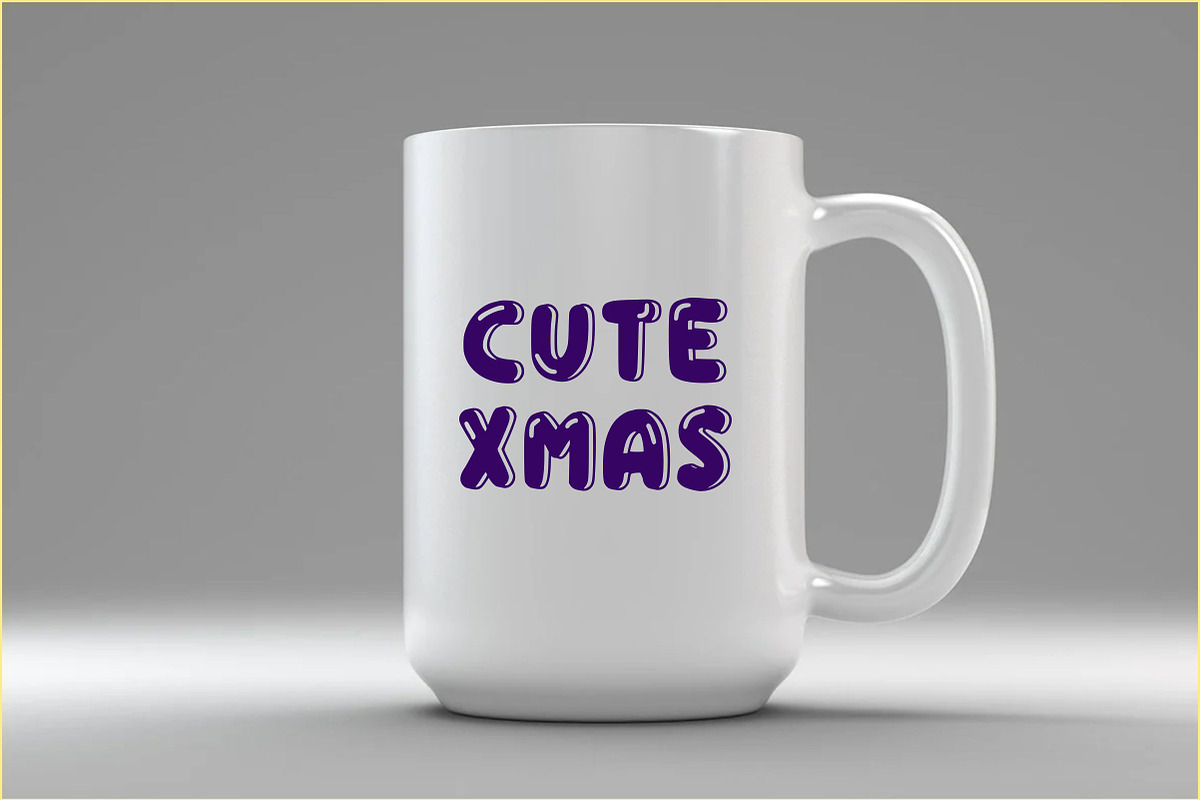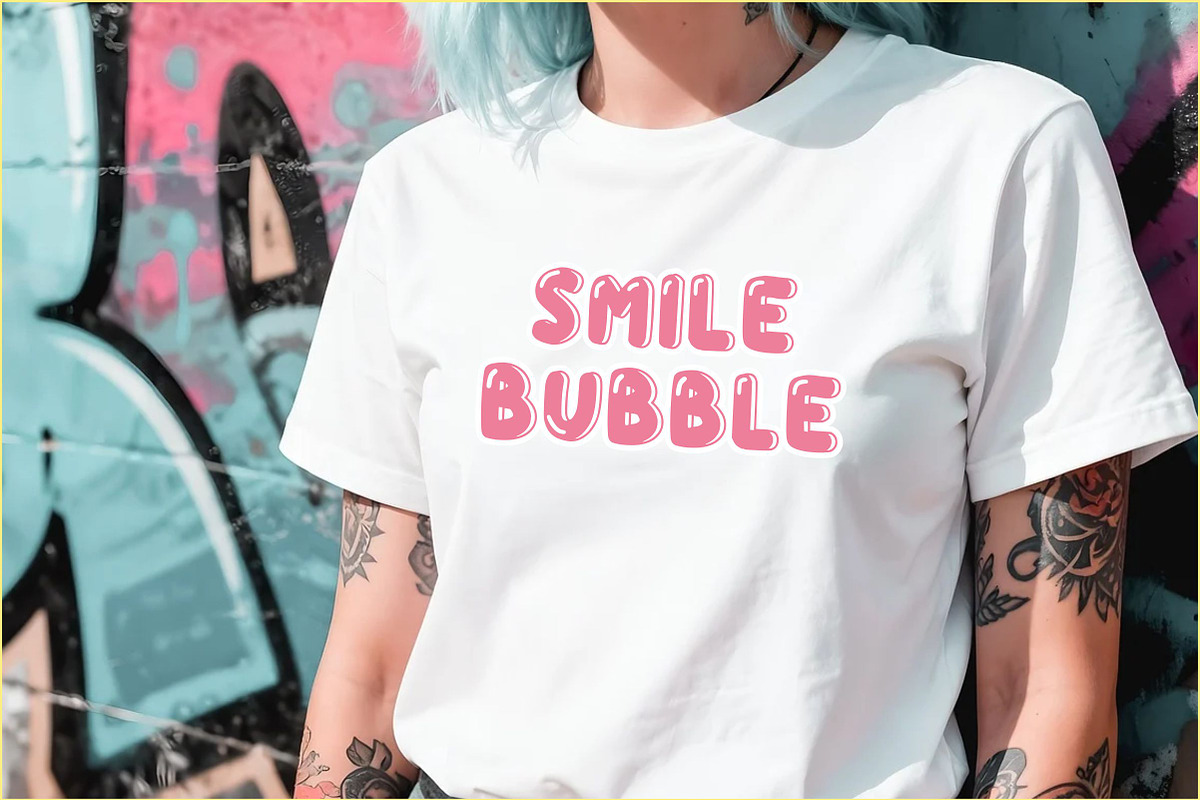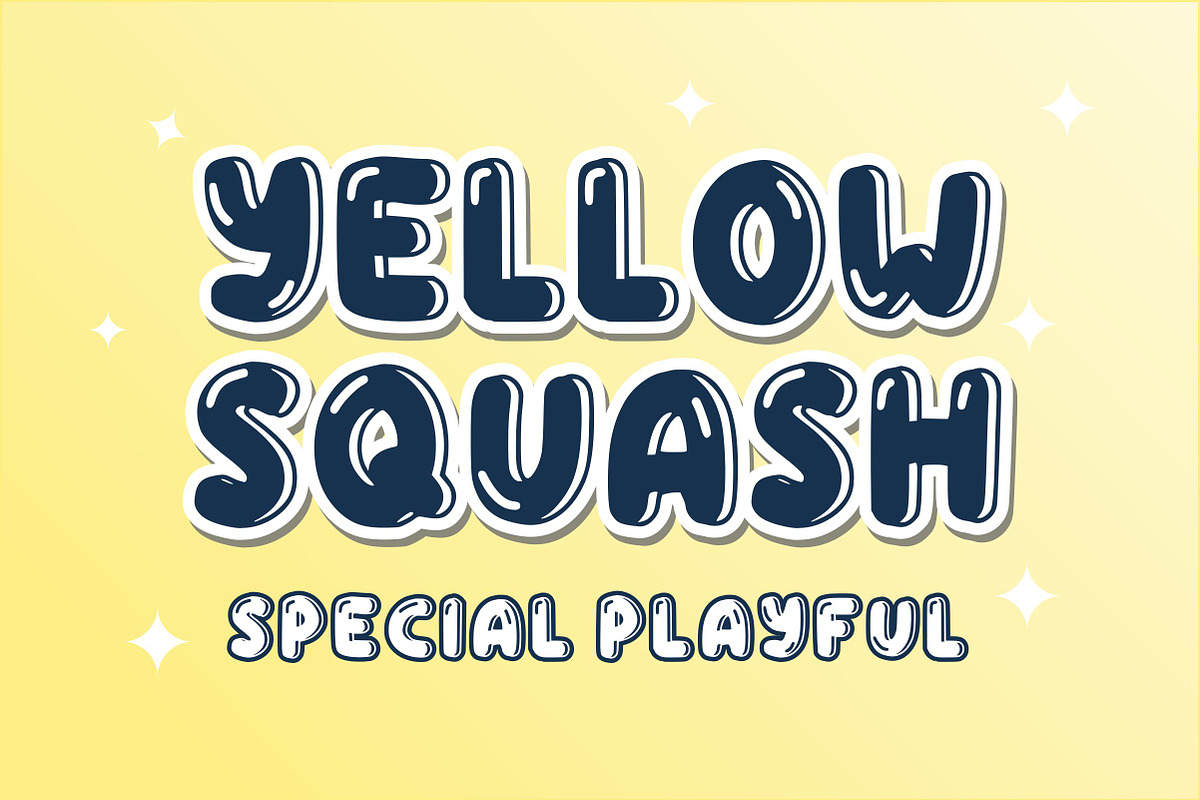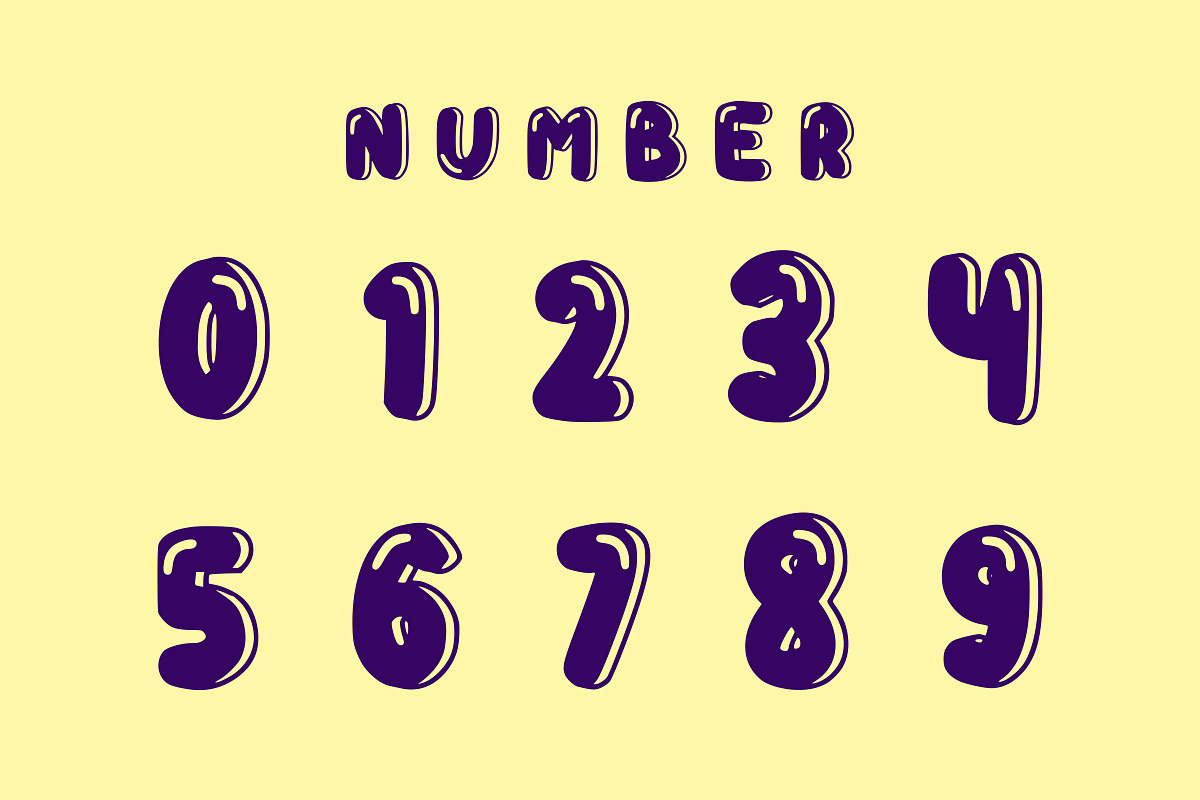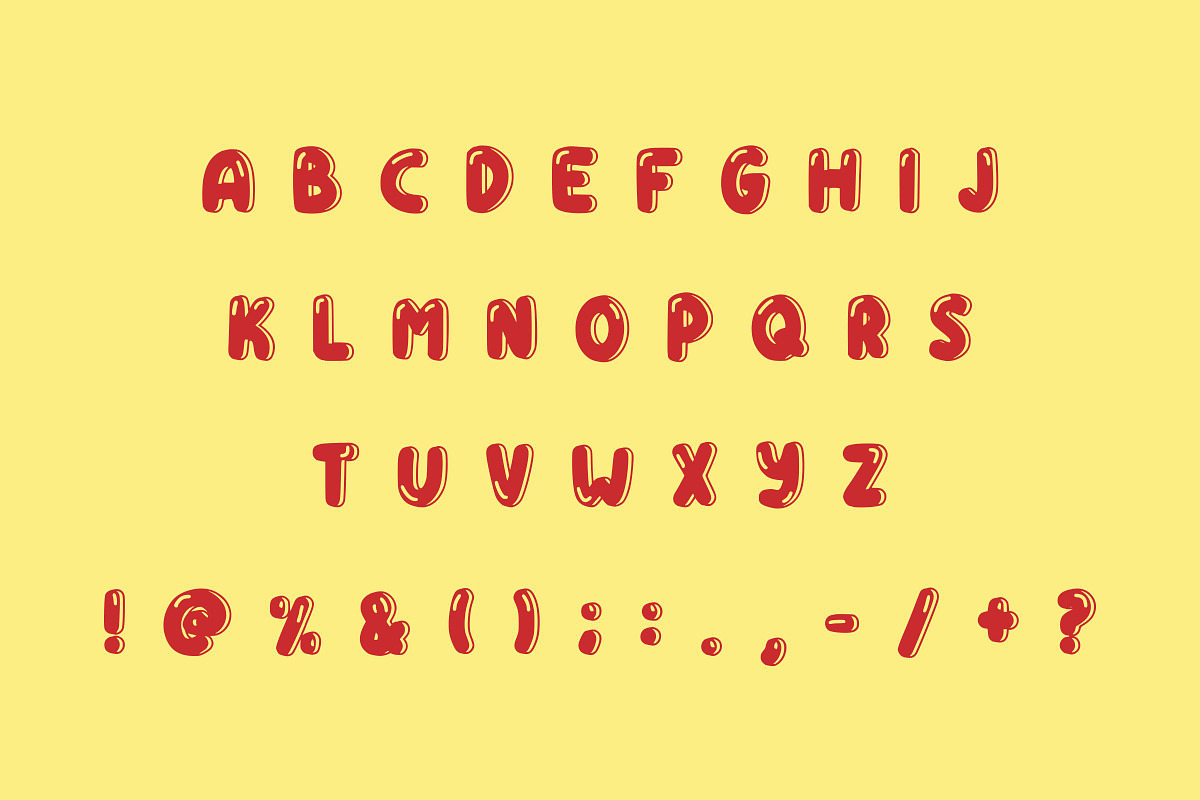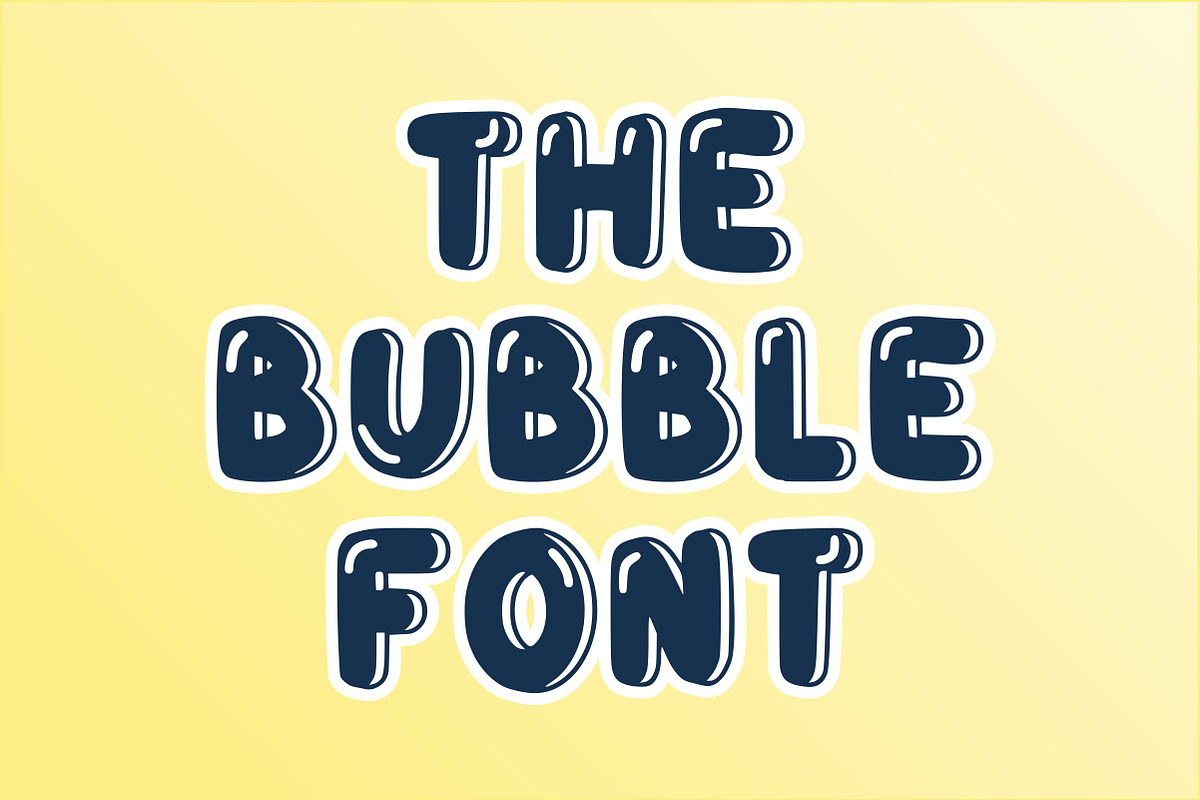
Yellow Squash
Yellow Squash is a fun and cute display font. Its friendly feel makes this font incredibly versatile, fitting a wide range of contexts. Add it to your creative ideas and notice how it makes them stand out! This font will be an incredible asset to your fonts’ library, as it has the potential to elevate any creation.